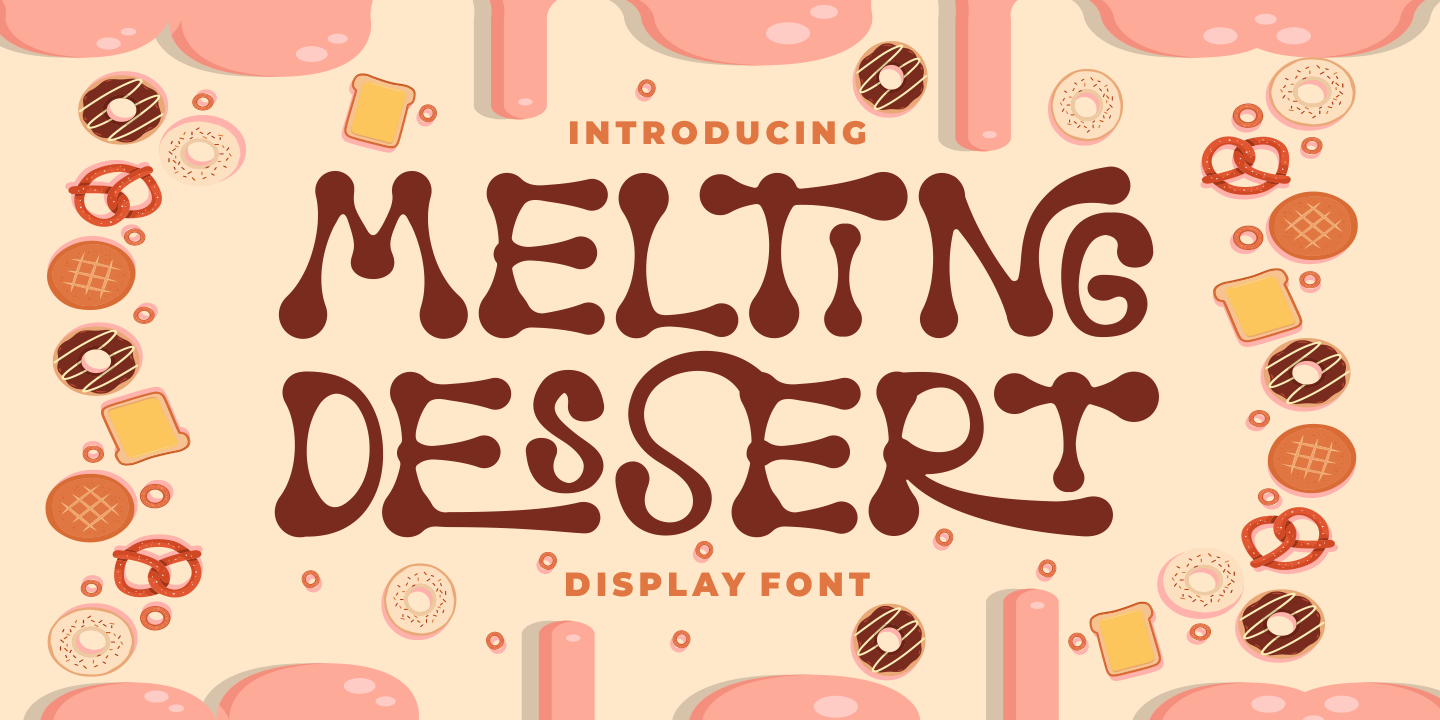
The Melting Dessert Font is a wonderfully whimsical and often delectable display typeface, characterized by its playful, fluid forms that mimic the luscious, dripping textures of melting treats. Imagine its unique characters gracing the labels of gourmet ice cream, adding a delightful and indulgent touch to confectionery branding, or creating inviting titles for dessert recipes and baking blogs. Its soft, organic curves and charmingly gooey appearance also make it an excellent choice for unique cafe menus, sweet social media graphics, children's party invitations with a sugary theme, and any design where a tempting, lighthearted, and mouth-watering feel is desired. Whether you're aiming for a fun, appetizing look or a distinctly creative touch with a delicious twist, Melting Dessert Font delivers with its undeniable charm, ensuring your visuals are both inviting and truly memorable.
What makes Melting Dessert Font so exciting is its ability to infuse designs with immediate personality and a sense of delightful indulgence. In a visual landscape where evoking appetite and joy is key, this font offers a refreshing dive into playful typography. It conjures images of sweet delights, summer days, and irresistible treats. It’s more than just a typeface; it’s a design element that can instantly set a warm, inviting, and appetizing tone for a project, making content feel more relatable and emotionally resonant. Designers will find it an invaluable asset for creating visuals that truly connect with an audience seeking comfort, happiness, and a sprinkle of sugary charm.
The Melting Dessert Font family is typically structured to offer a range of styles that enhance its whimsical and delectable appeal. Beyond the primary Melting Dessert Regular typeface (which might feature a charming, "dripping" or "soft-serve" quality), you might find companion styles such as a slightly bolder Melting Dessert Bold for stronger emphasis, or perhaps Melting Dessert Outline or Melting Dessert Shadow versions that add different visual textures and dimensions, enhancing its luscious effect. Given its decorative nature, the family may also include unique ligatures or playful dingbats (like sprinkles or cherries) that perfectly complement its overall character, allowing for even greater customization and delightful sweetness. These diverse family members provide designers with the flexibility to craft engaging typographic compositions, ensuring visual consistency and maximum creative expression from prominent titles to smaller decorative elements, all while maintaining the font’s inherent charm.